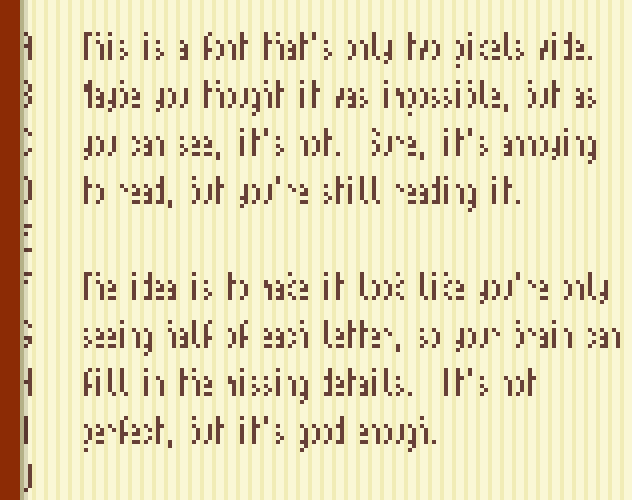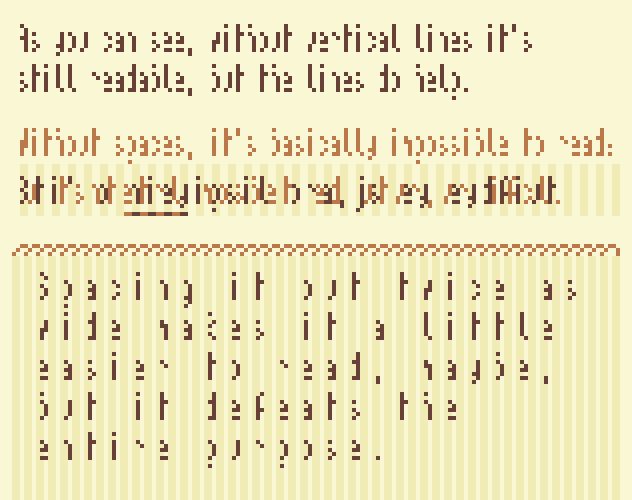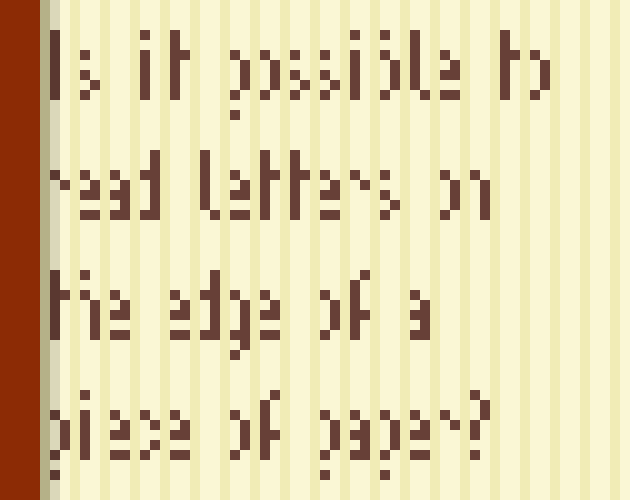
Picket Right font
If a font only 2px high wasn't enough, here's a font that's only 2px wide!
Picket Right isn't easy to read, sure, but I'm still amazed that it's readable at all. The idea is to trick your vision into thinking you're only seeing half of each letter, so your brain can fill in the rest of the details.
I wouldn't use it for anything crucial to read, but you might have fun hiding fun easter eggs with it.